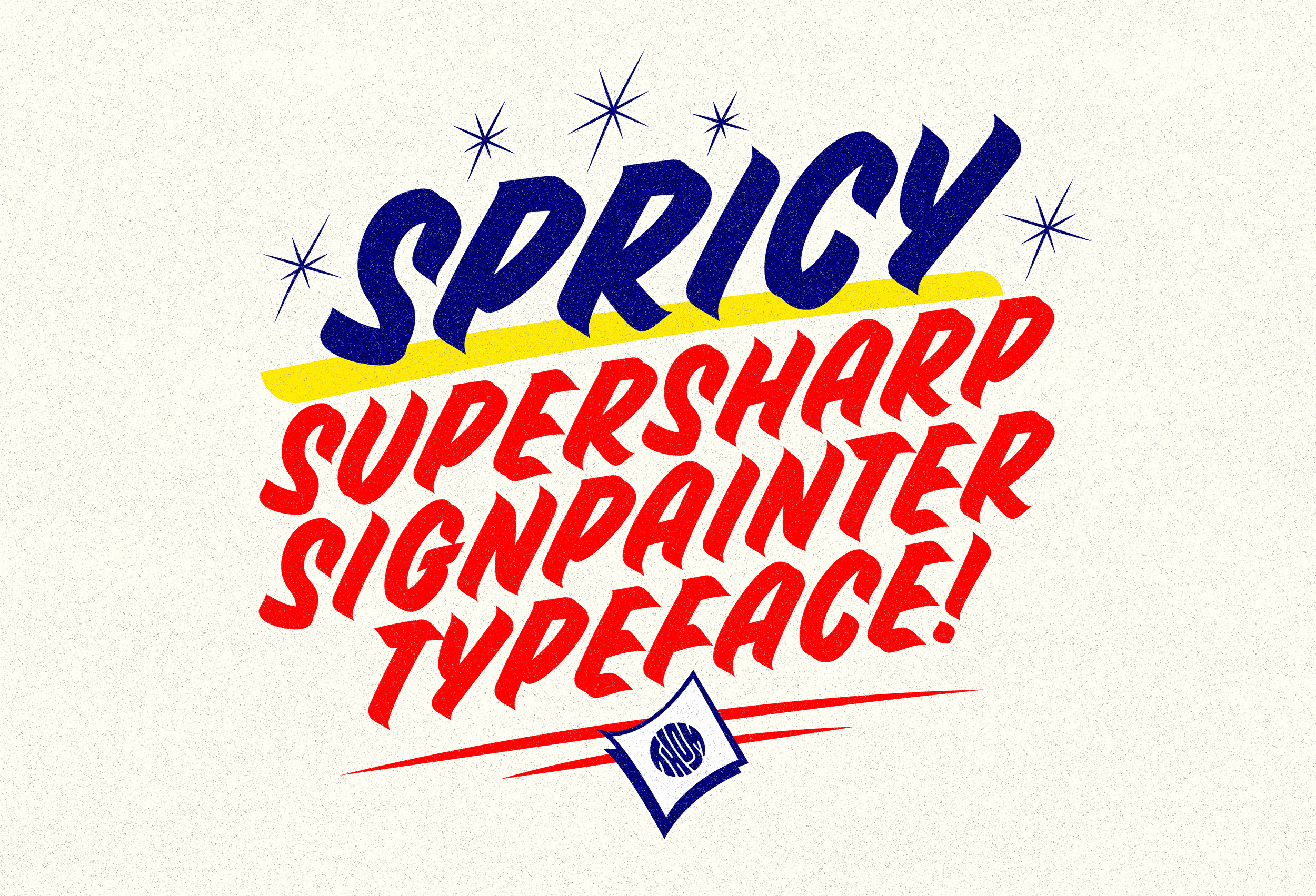
Spricy - Typeface
Spricy is a signpainter inspired typeface with supersharp details. The letter shapes take inspiration from the famous ‘casual’ signpainting style, most well known for it’s use on hand painted signing and advertising of local shops and markets. With the bold and edgy strokes, Spricy tried to recreate this aesthetic. Making it a perfect choice for loud and proud advertising and logotypes.
Spricy is still in development (hence the 0.100 version number). The character set is limited for now, but the characters that are there are carefully crafted. I’m also open to suggestions and feedback to improve the quality of this typeface. If there are any features/characters you’d like to see in a next version, feel free to send me an email at: hello@thomniessink.com.